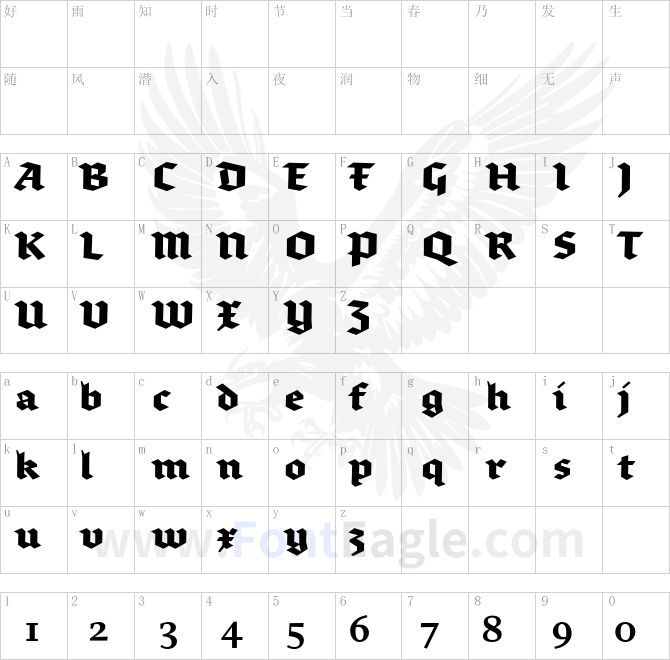
- Font name:Brokenscript-Bold
- Font Subfamily ID:TransType 2 PC;Brokenscript-Bold;001.001;04/01/04 04:32:07
- Font Full Name:Brokenscript-Bold
- Postscript:Brokenscript-Bold
- Font Copyright:Copr.1990, 1991 Letterror, Just van Rossum